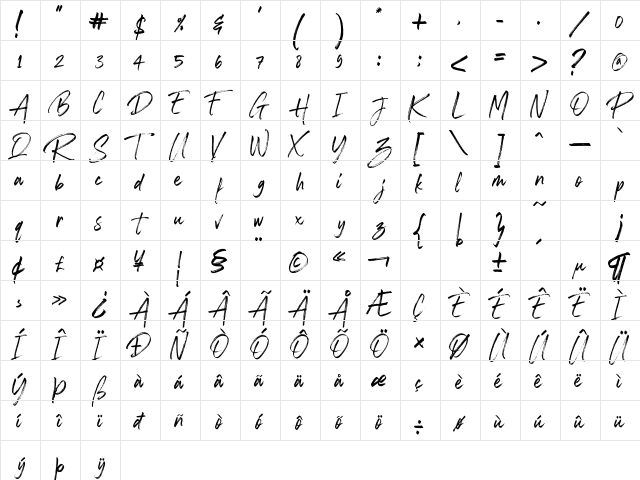
Rockville Solid Regular
Design Context for Rockville Solid Typeface
Rockville Solid is a composed and adaptable typeface that performs quietly and consistently across a wide range of design contexts.